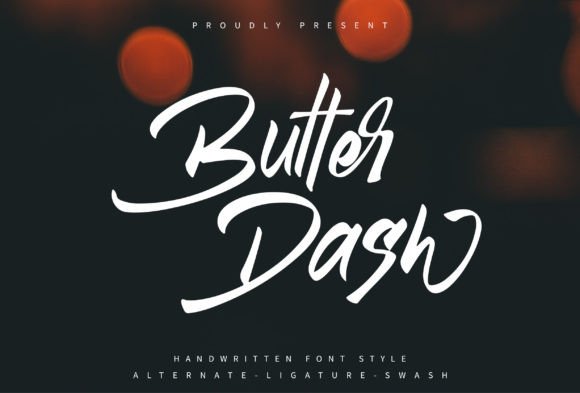
Welcome to the world of Butter Dash Font, a lettering font that captures the artistry of handwritten typography. Its fluid and skillful brush strokes possess an organic feel, perfect for designs that demand a personal and artistic flair.
Immerse yourself in the Butter Dash experience and discover a font forged from the essence of creativity. Its elegant curves and dynamic strokes exude a charm that enchants and engages. Experience the art of hand-lettering in digital form, where each character dances across your designs with graceful precision.
Designers, rejoice! Butter Dash is your secret weapon to create exceptional visual experiences. Its PUA encoding grants you effortless access to glyphs and swashes, empowering you to unleash your imagination and craft designs that captivate. From logos and branding to invitations and social media graphics, Butter Dash adds an artistic touch that sets your work apart.
Take your web design to new heights with Butter Dash. It's the font that breathes life into your online creations, making them stand out from the ordinary. Whether you're crafting a captivating website, an alluring blog, or an engaging online portfolio, Butter Dash weaves its magic into every element, creating a truly immersive experience for your visitors.
But Butter Dash is not just a font; it's an expression of your individuality, a reflection of your artistic soul. It's a tool that empowers you to craft designs that resonate with your audience, to tell stories that captivate, and to leave an indelible mark on the world.